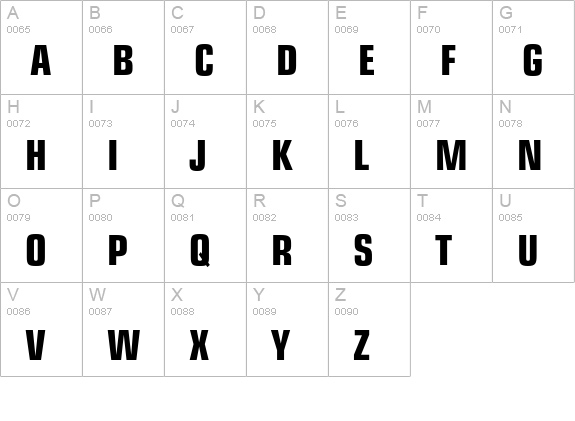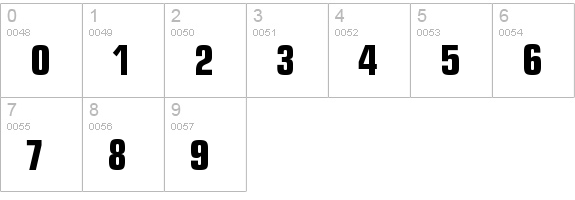
EuropeCond Bold is a strong, high-contrast variant in the EuropeCond typeface family \xE2\x80\x94 well suited to headlines, attention-grabbing titles, and strong calls-to-action.
EuropeCond Bold font is a sleek and modern typeface that exudes confidence and professionalism. Its bold and striking design makes it perfect for headlines, logos, and branding projects. With its clean lines and distinctive personality, EuropeCond Bold font is sure to make a statement in any design project. And the best part? EuropeCond Bold font is available for free download at FontsMarket.com. This means you can add this stylish font to your collection without any cost, making it a valuable asset for your creative endeavors. Don't miss out on this opportunity to elevate your designs with the bold and impactful EuropeCond Bold font, now just a click away at FontsMarket.com.